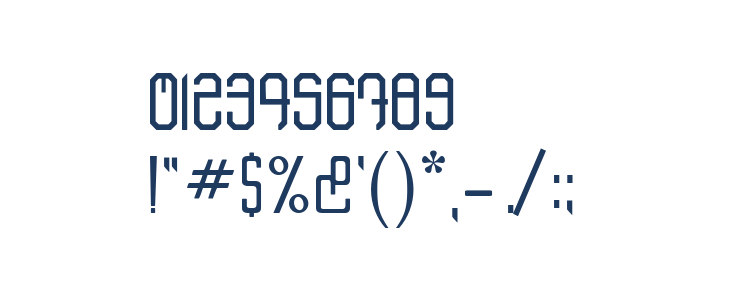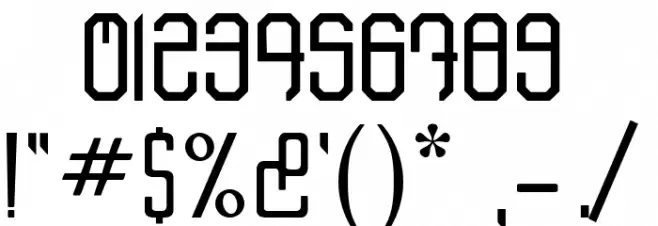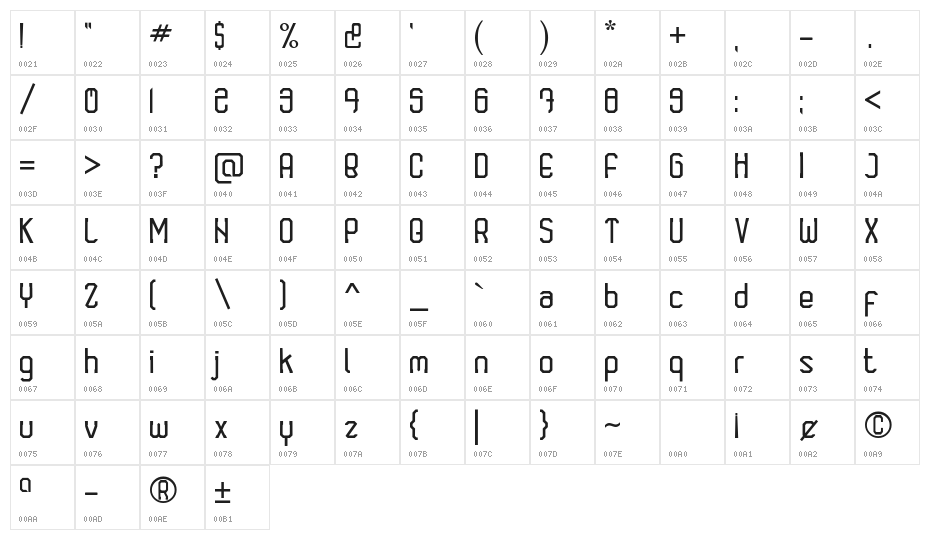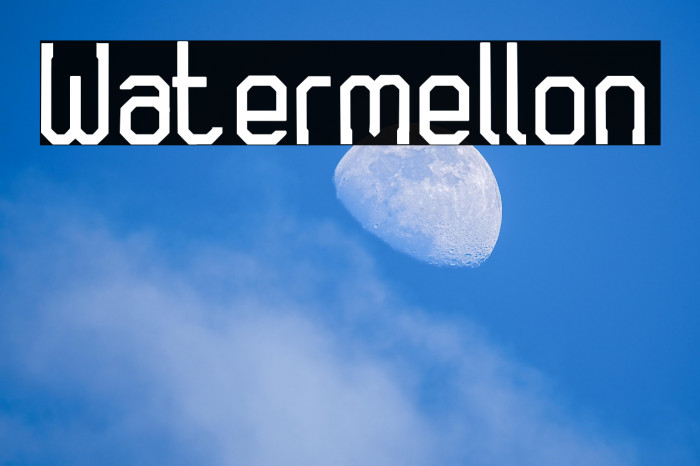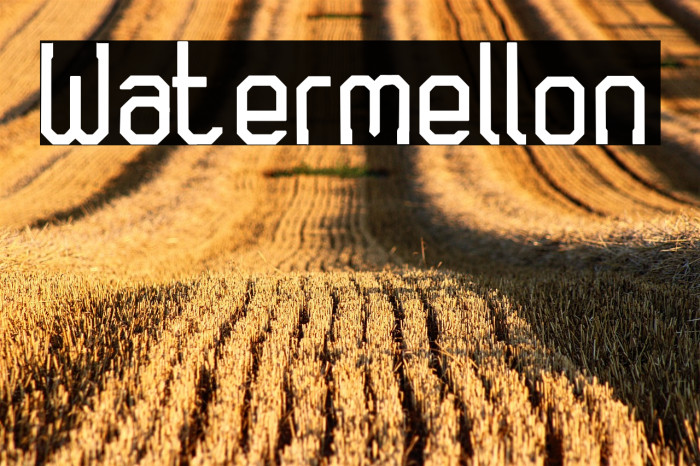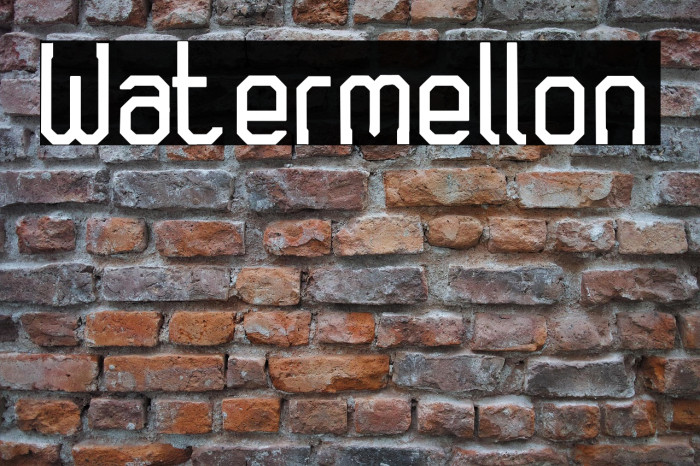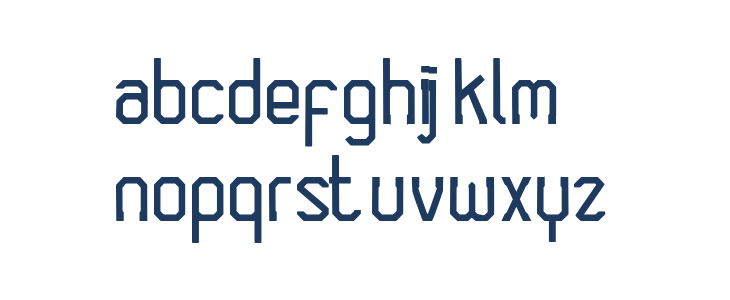
Watermellon Font
Watermellon Description
This font features a bold, geometric design with a modern and industrial feel. The characters are constructed with thick, uniform strokes, giving them a strong presence on the page. The angular shapes and sharp edges contribute to a futuristic aesthetic, while the consistent line weight across all characters ensures readability. The uppercase letters are particularly striking, with a blocky appearance that commands attention. The lowercase letters maintain the same geometric style, offering a cohesive look throughout. Numbers and special characters are designed with the same boldness, making them ideal for impactful displays.
WATERMELLON UPPERCASE
WATERMELLON LOWERCASE
WATERMELLON OTHER CHARS